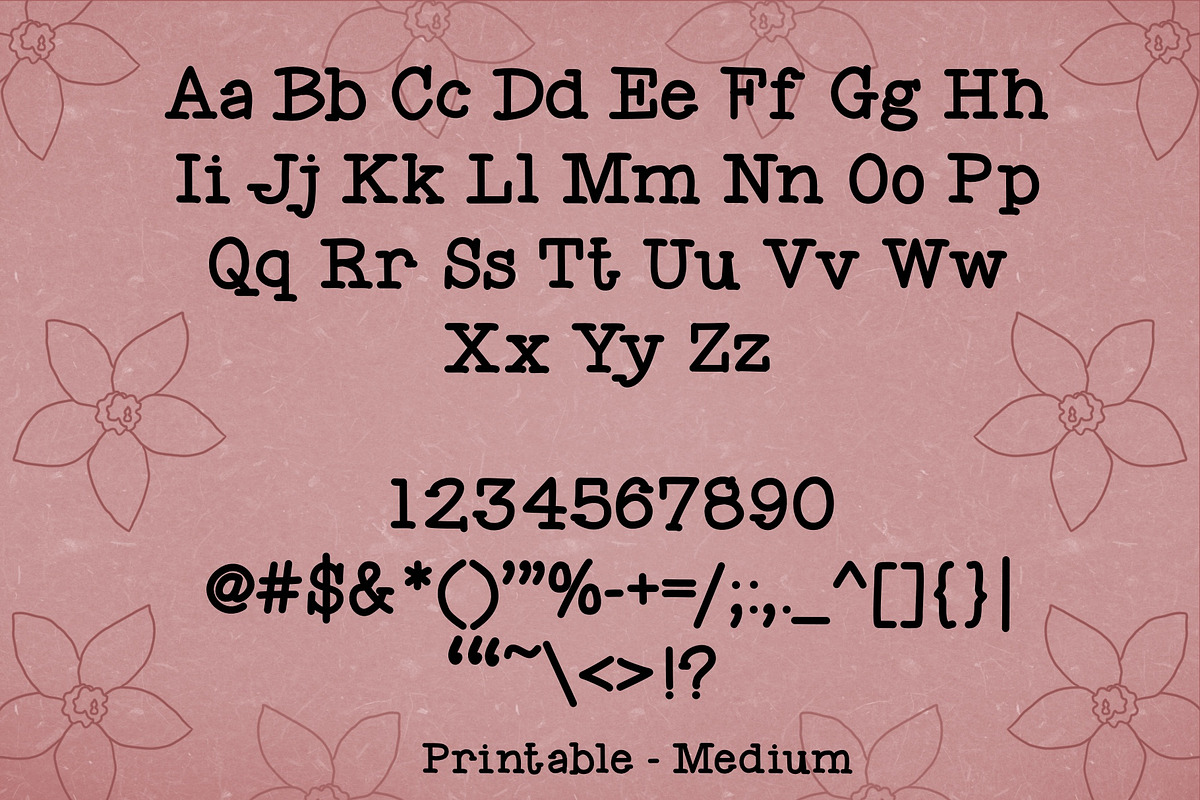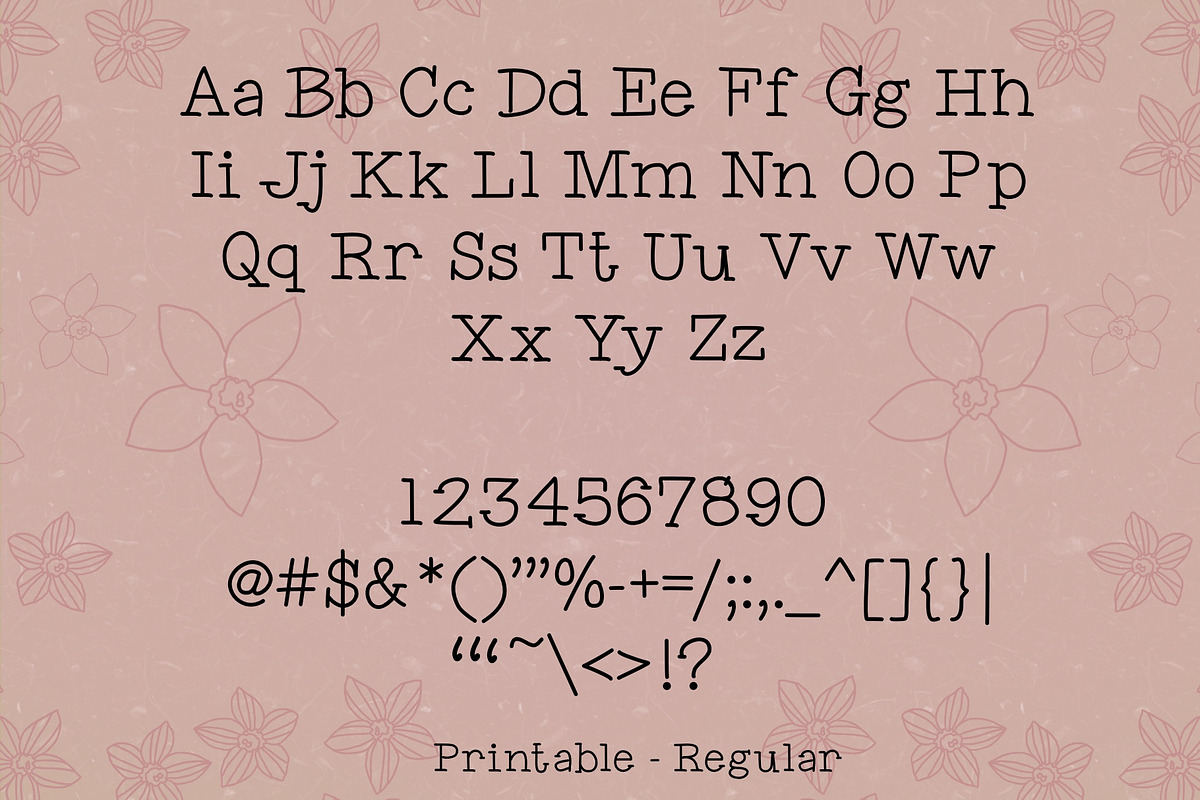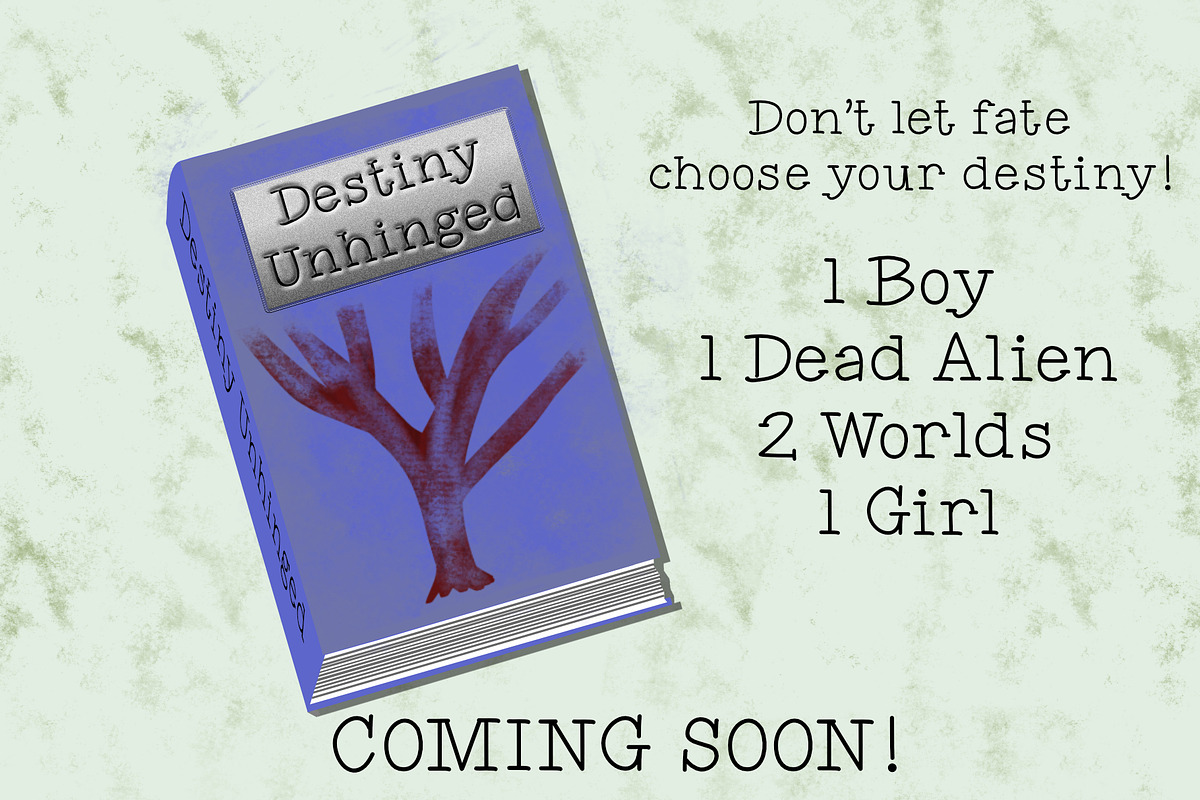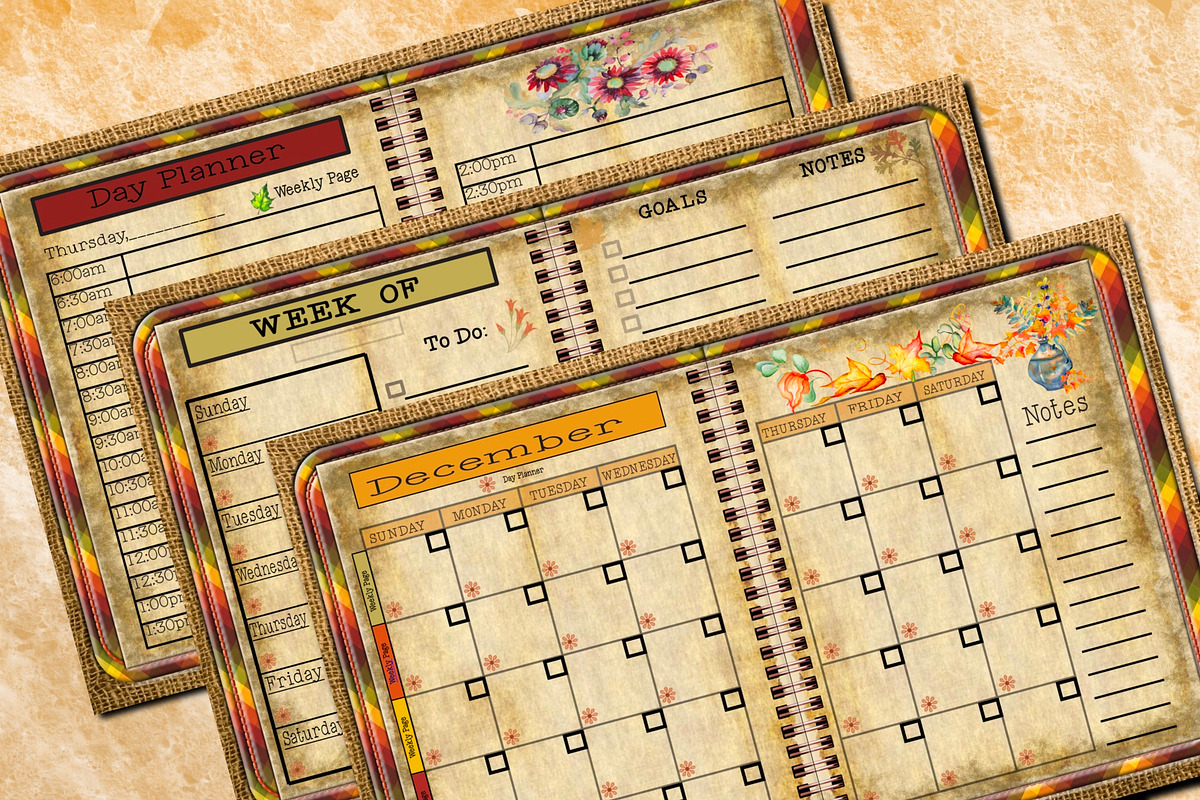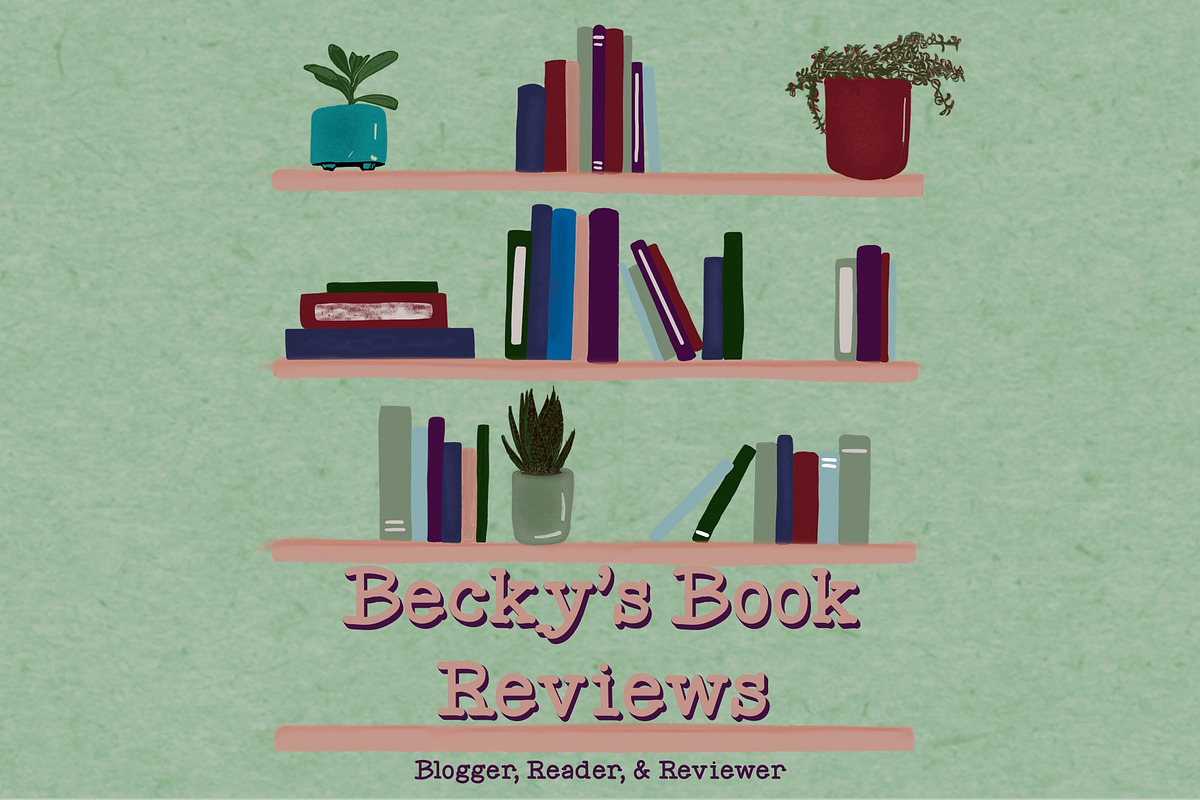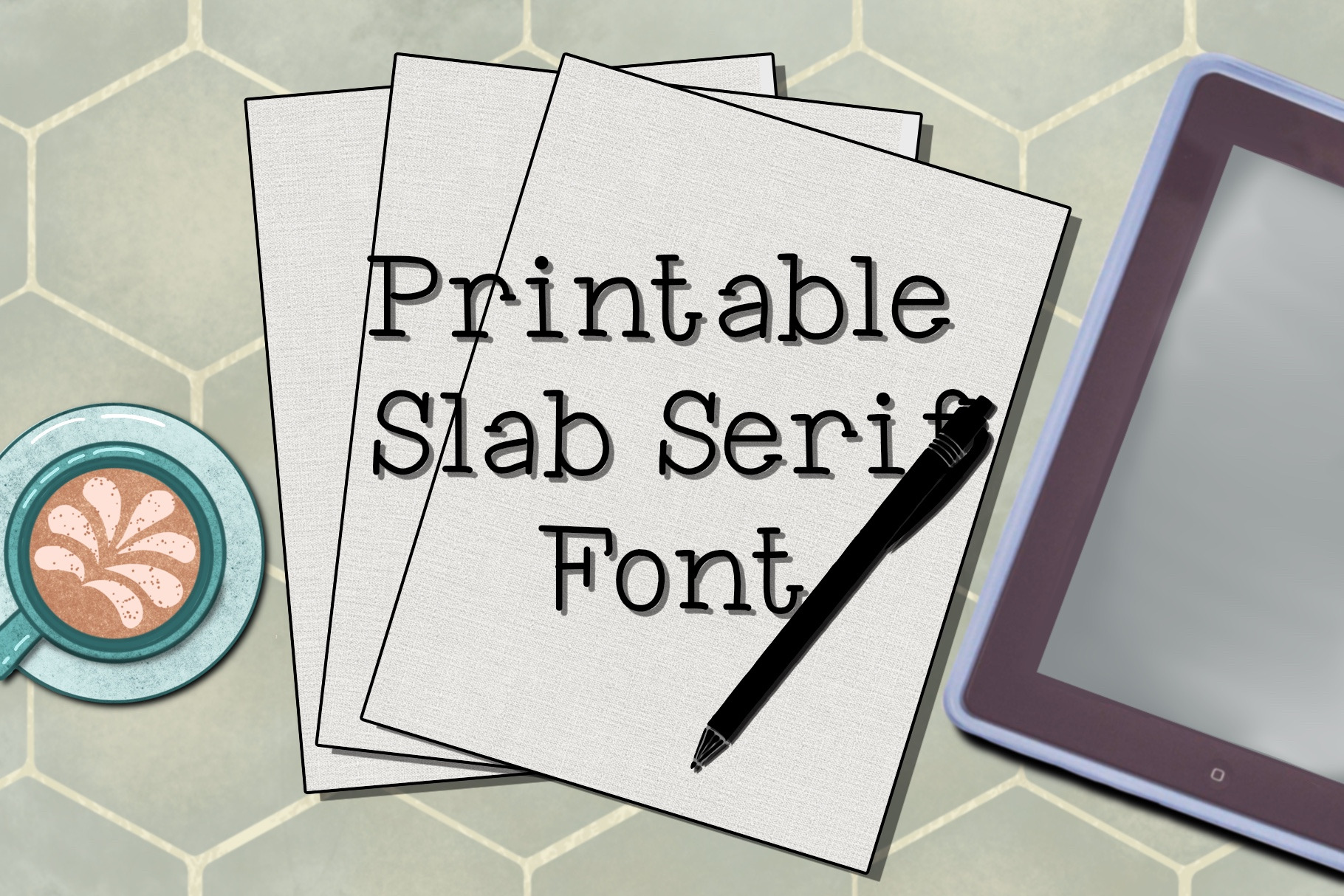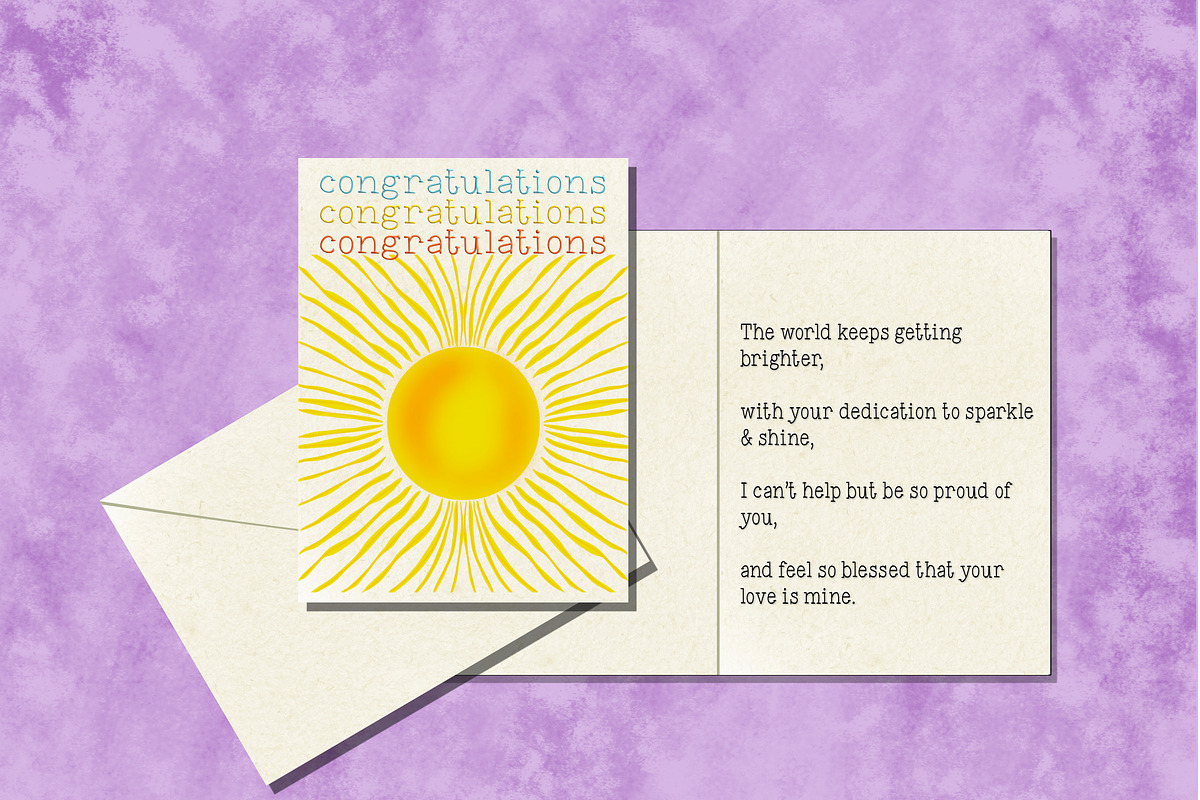
Printable Slab Serif Font
Printable is a slab serif font. As a writer and designer I created this font to stand out in anything that needs a little something extra to stand out.
This is a Greta font for journals, planners, wall art, greeting cards, announcements, logos, web advertisements, etc…
This font comes with two options.